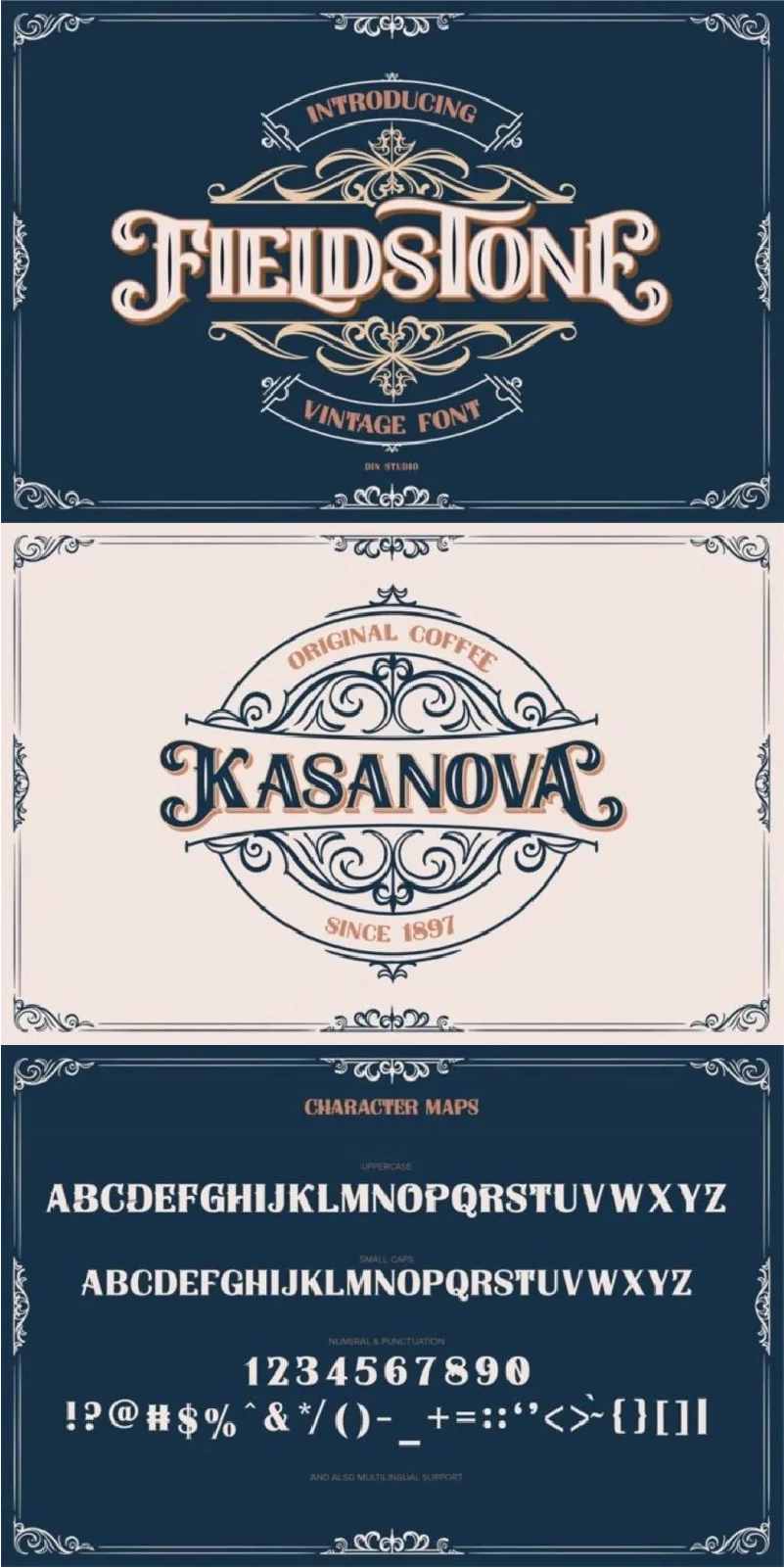
FIELDSTONE Font
About FIELDSTONE
Fieldstone is an amazing display font. The font is suitable for any project like branding , lettering , tshirt print and many others. Our font always includes Multilingual Support to make your branding reach a global audience. See the previews above to get some inspiration on how you can use them. Enjoy the font!